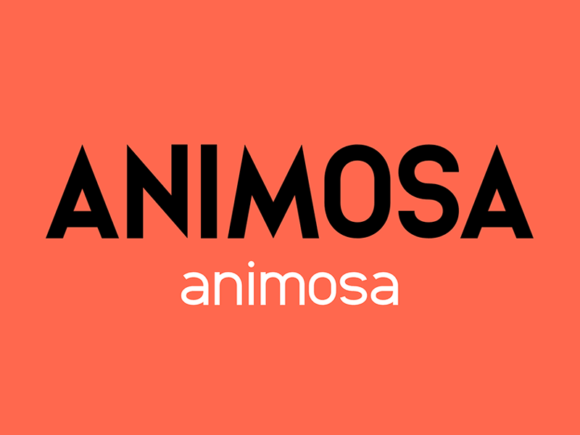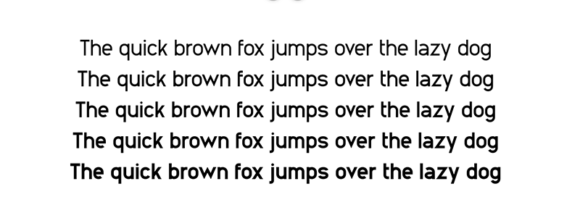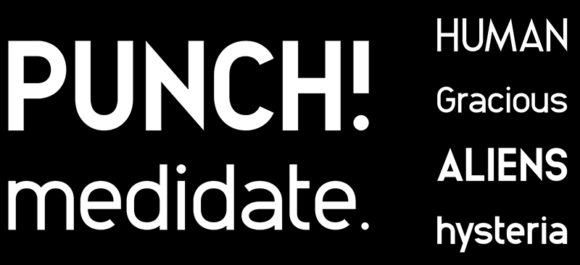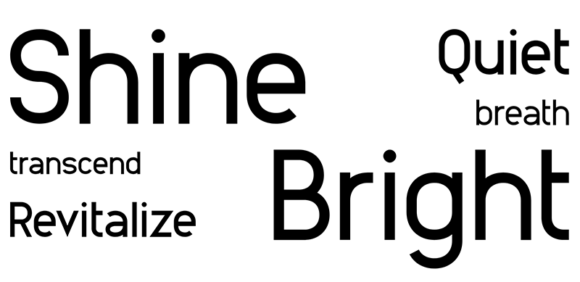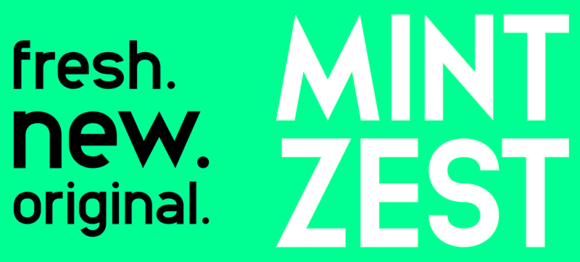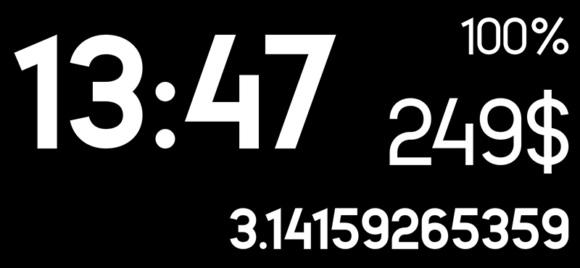
Animosa: Free sans-serif font family
Animosa is a free font family, “high in spirit and even in temperament” as its creator Stefano Giliberti says. Font is free
Animosa is very versatile, you can use it for web and any other graphic design project (e.g. poster, flyers, logotypes, etc). A big thanks to Stefano for this awesome resource!